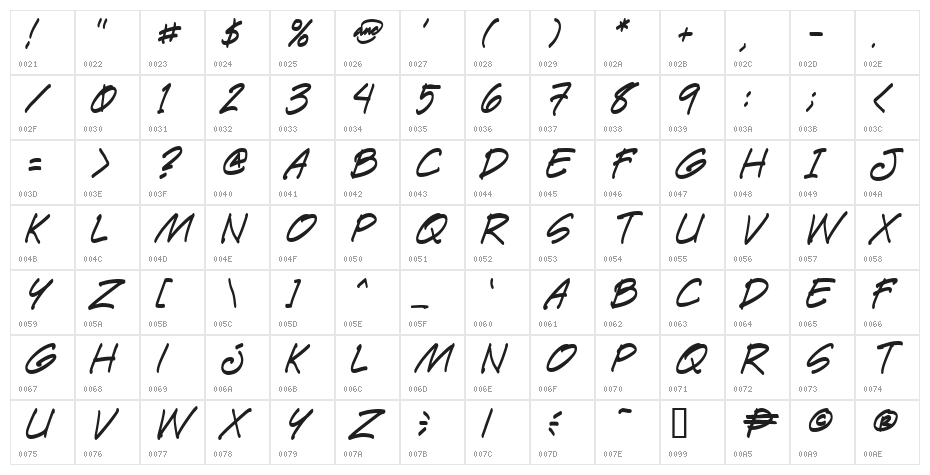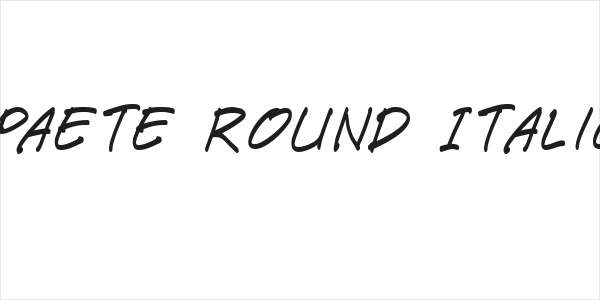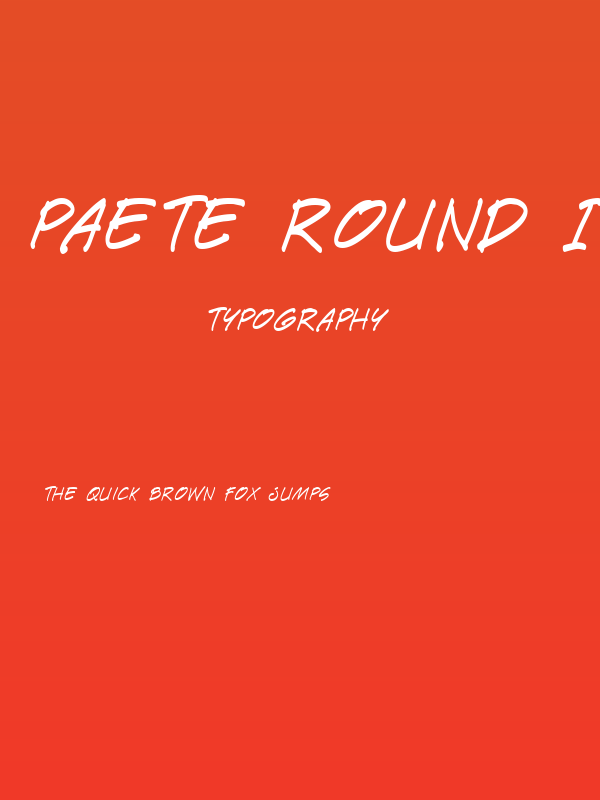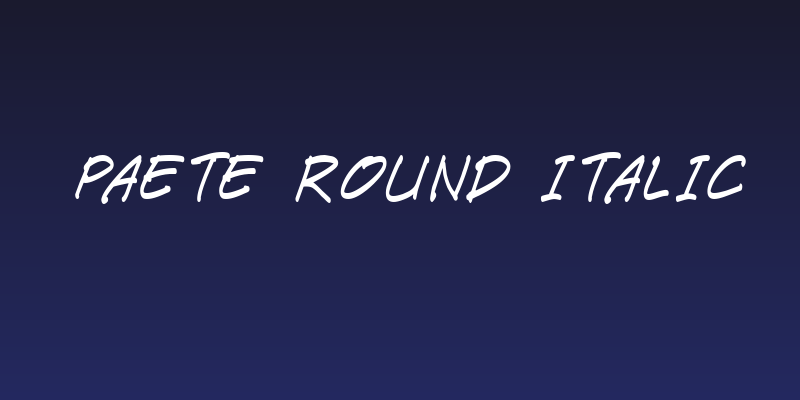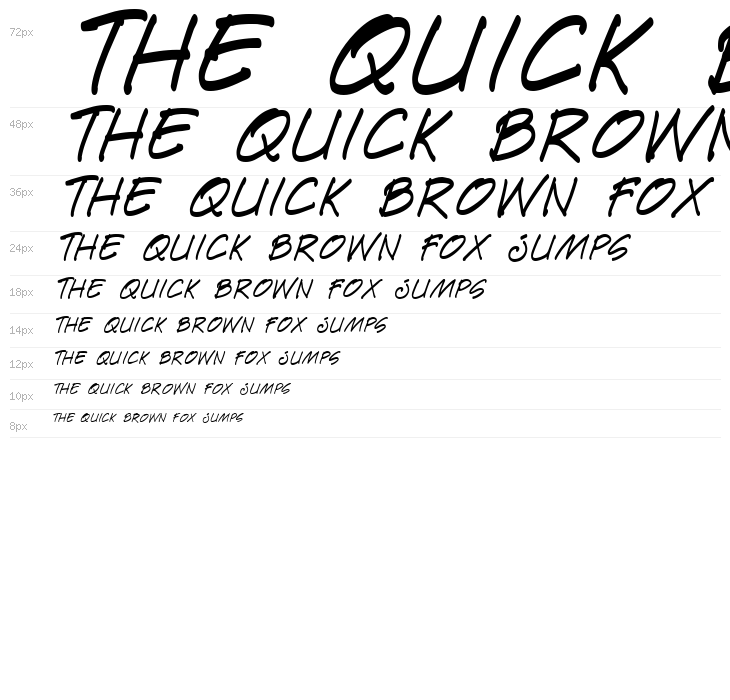
Paete Round Italic Font
Paete Round Italic Description
This font features a dynamic and fluid script style, characterized by its rounded, italicized letters that convey a sense of movement and elegance. The uppercase and lowercase letters maintain a consistent flow, with smooth curves and a slight slant that enhances readability while adding a touch of sophistication. The numerals are bold and clear, matching the overall aesthetic of the alphabet characters. Special characters are seamlessly integrated, maintaining the font's cohesive look. This style is ideal for projects that require a personal, handwritten touch, offering both clarity and artistic flair.